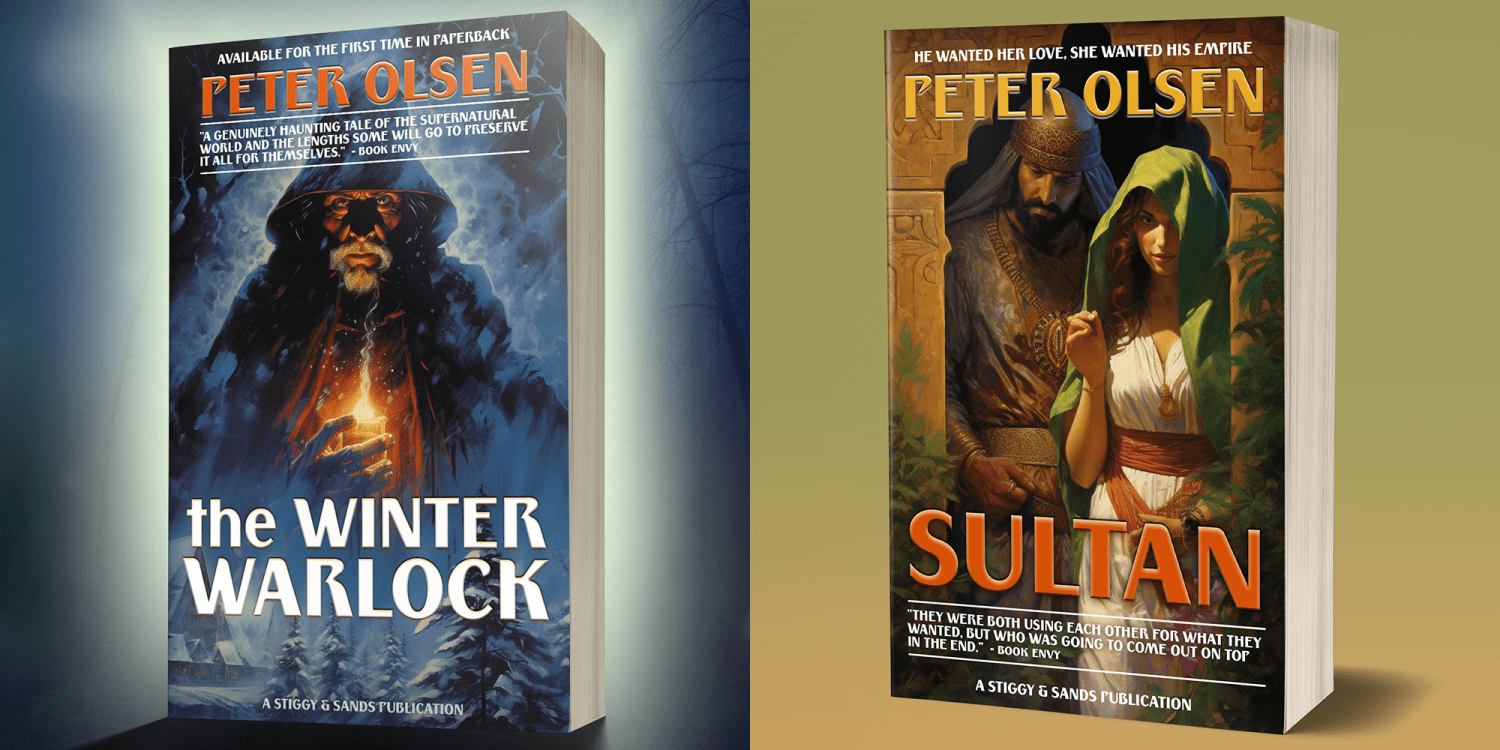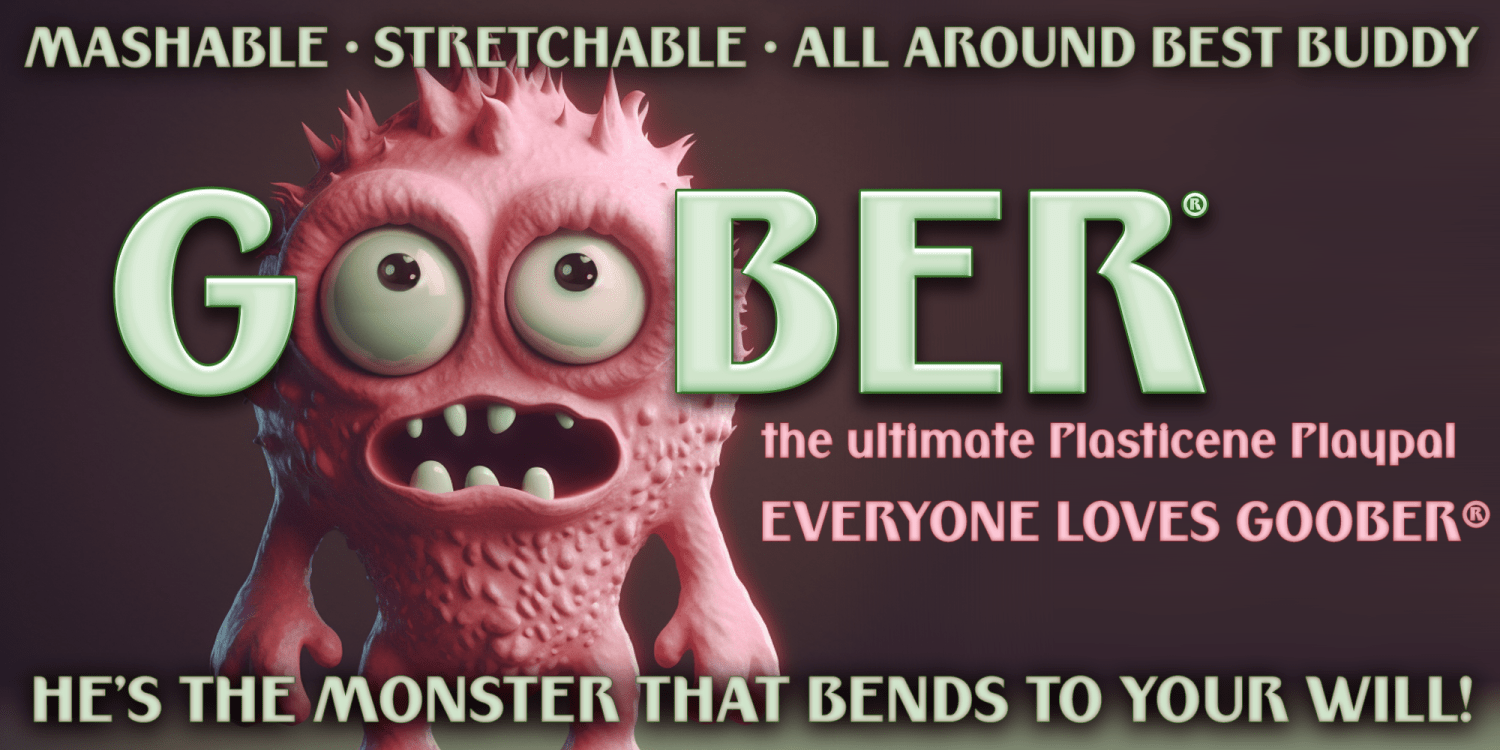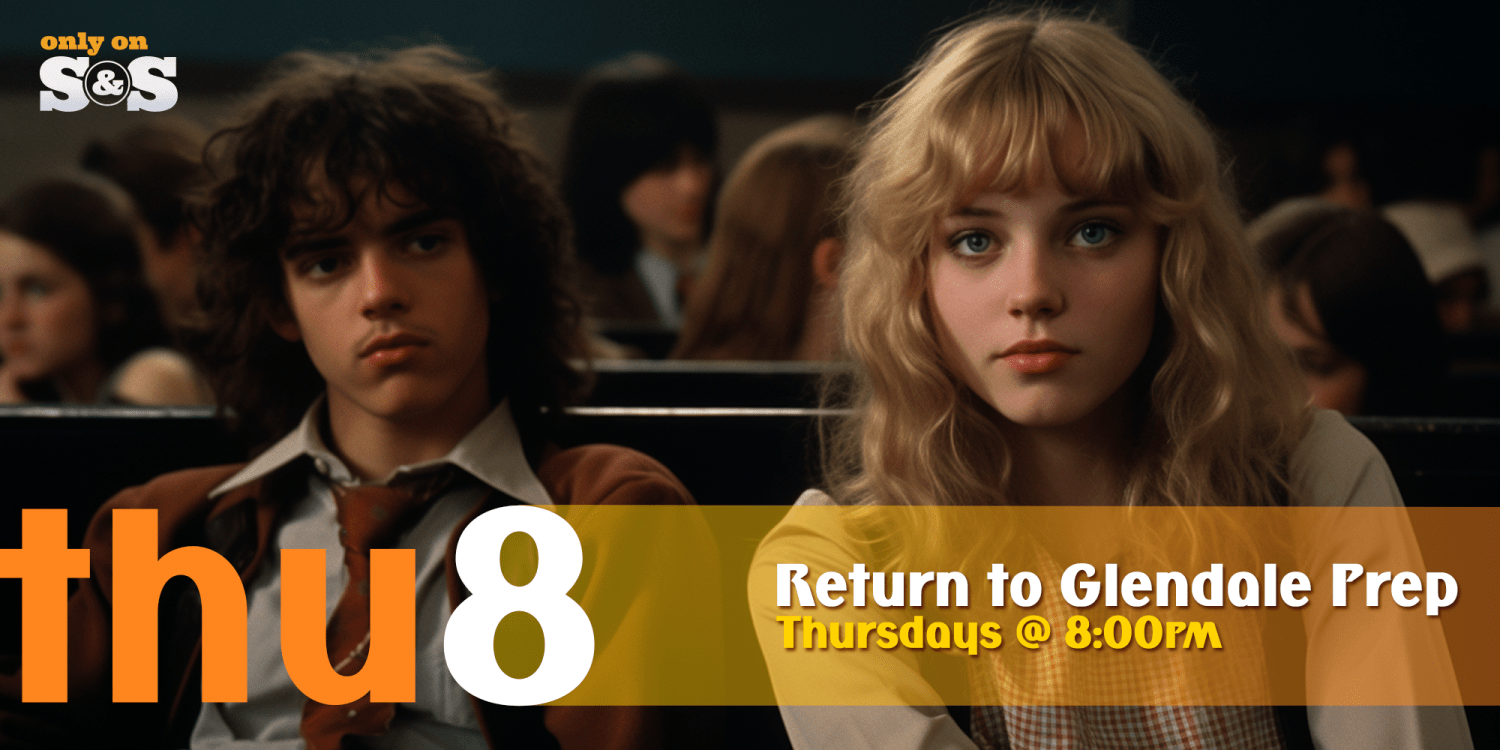
About Rhizo
A Stylized Sans Serif with a Futuristic Flavor. The Rhizo font began as a digitization of a film typeface from LetterGraphics known simply as "Rodin". The original specimen included standard Capitals and Lowercase, Numerals and limited punctuation.…